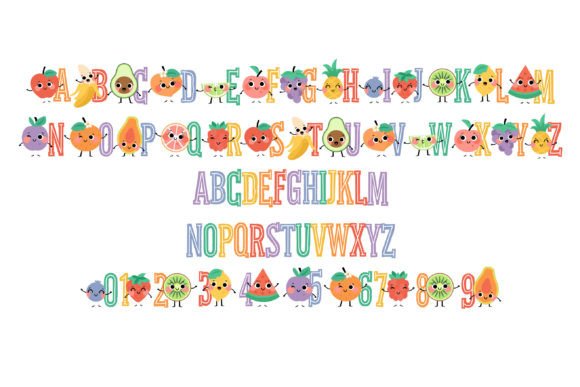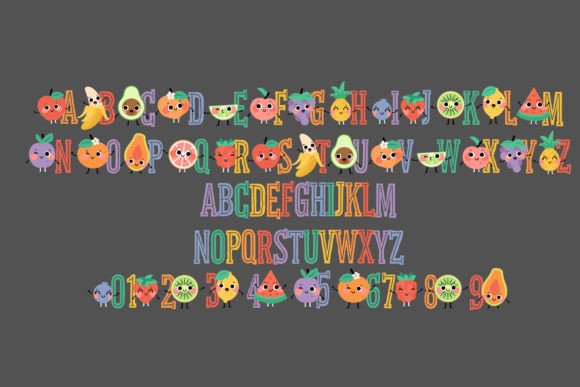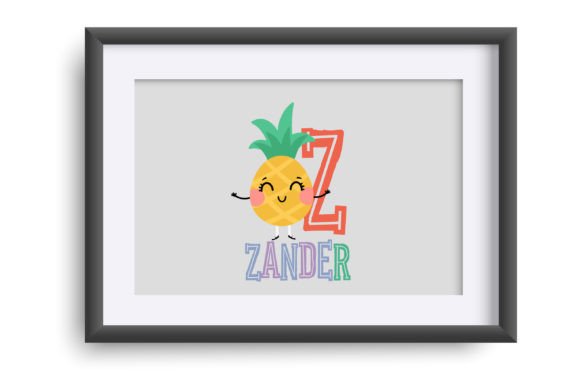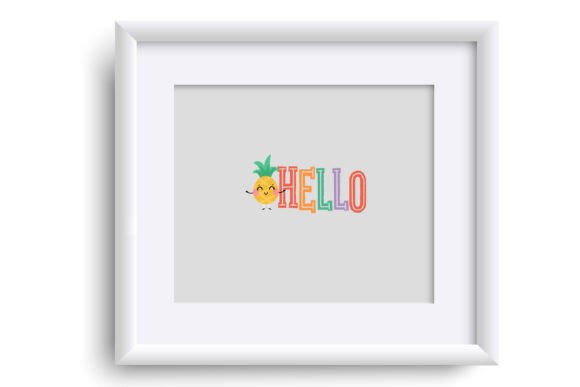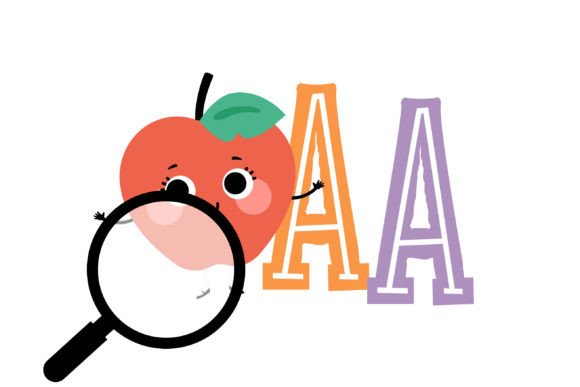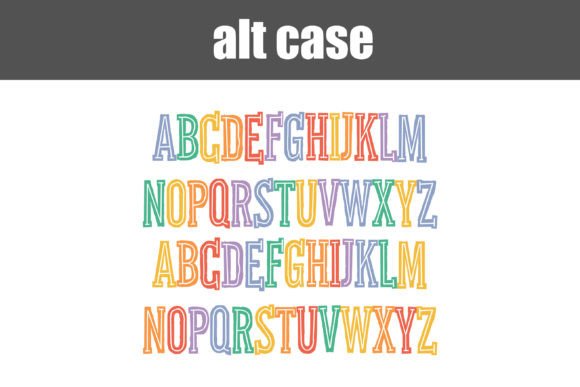
Introduction to Happy Fruit Font
Have you ever been working on a creative project, pouring your heart and soul into it, and then realized that something was missing? That’s where the perfect font can make all the difference. For designers, a great font can elevate a design from ordinary to extraordinary. And that’s exactly what the Happy Fruit Font is – a game-changer for any creative project. This full-color font features whimsical serif lettering with fruit on the uppercase, adding a touch of personality to any design.
Whether you’re working on a commercial project or a personal creative endeavor, the Happy Fruit Font is sure to be a valuable addition to your design toolkit.
Key Features of Happy Fruit Font
- Unique and playful design, perfect for creative projects requiring a fun and youthful vibe.
Honest Review: Happy Fruit Font
I recently came across the Happy Fruit Font while searching for a fun and playful design resource to use in my creative project. The font has a vibrant and colorful feel to it, making it perfect for anything from kids’ packaging to food labels.
What works well: ✨ The font is extremely versatile and can be used in a wide range of creative projects, from advertisements to social media graphics. The variety of colorful options also makes it easy to match the font to your brand’s unique style.
Limitations: ⚠️ The font may not be suitable for all types of projects, particularly those that require a more professional or formal tone. Additionally, some users may find the font to be a bit too cartoonish or childish for certain applications.
Overall impression: I’m really impressed with the Happy Fruit Font and would definitely recommend it to designers looking for a fun and playful design resource. With its high quality and versatility, it’s a great addition to any design library.
Tips for Getting the Most Out of Happy Fruit Font
Use Happy Fruit Font for your next creative project, such as designing a menu for a fruit stand or creating a flyer for a local farmer’s market. This high-quality font is perfect for any design resource that requires a fun and playful touch.
Happy Fruit Font is ideal for use in logos, branding materials, and advertisements for fruit-related businesses. You can also use it in educational materials, such as worksheets or posters, to teach children about different types of fruits.